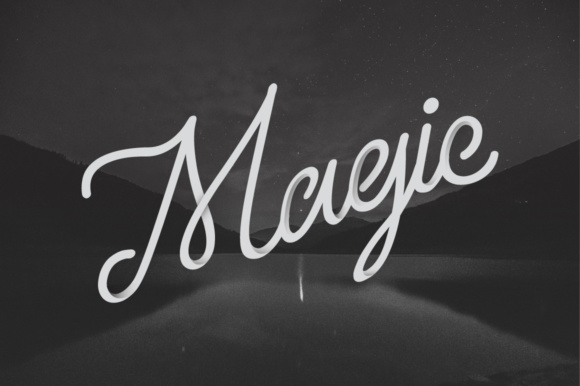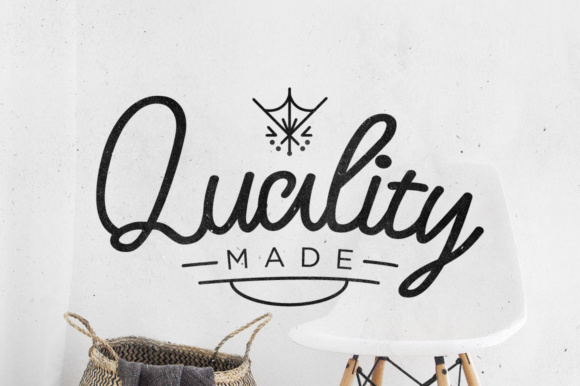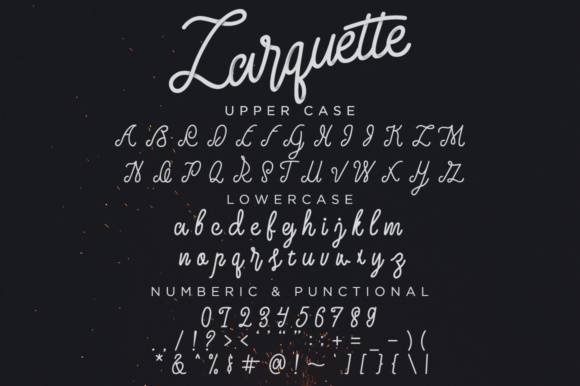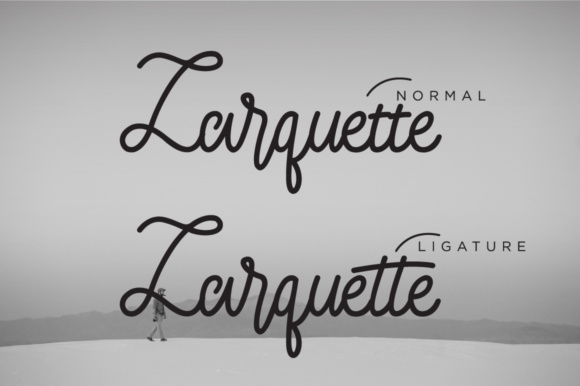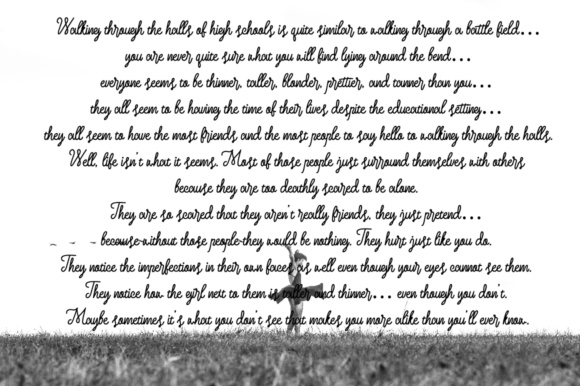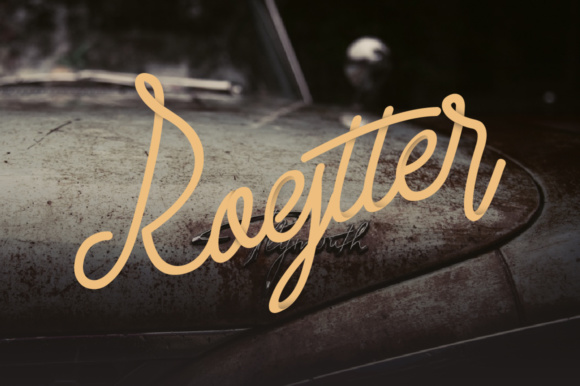
Introduction to Larquette Font
Larquette is a pretty and sleek monoline font, perfect for use in hip designs that need an organic feel.
This font has a dancing baseline and offers up tons of elegance and style .
Key Features of Larquette Font
Why Choose Larquette Font?
Larquette Font offers exceptional quality and versatility, making it a valuable addition to your design toolkit. Whether you’re creating for personal projects or commercial use, Larquette Font delivers professional results.